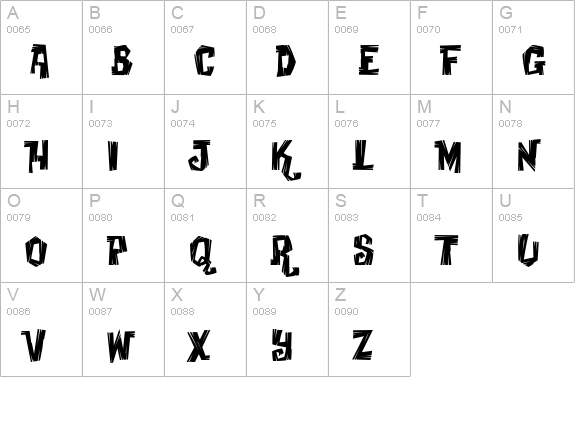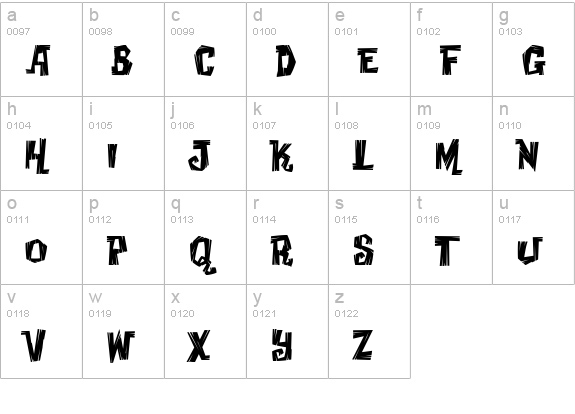
Creaky Frank Font Details
Introducing Creaky Frank font, a unique and quirky typeface that exudes a sense of mystery and nostalgia. With its uneven lines and rustic charm, this font brings a creaky and weathered aesthetic to any design project. Perfect for adding a touch of vintage flair or a spooky vibe, Creaky Frank font is sure to make your text stand out. And the best part? Creaky Frank font is available for free download at FontsMarket.com. Simply head over to the website and grab this fantastic font to add a touch of character to your designs. Embrace the creaks and cracks of Creaky Frank font and let your creativity shine!